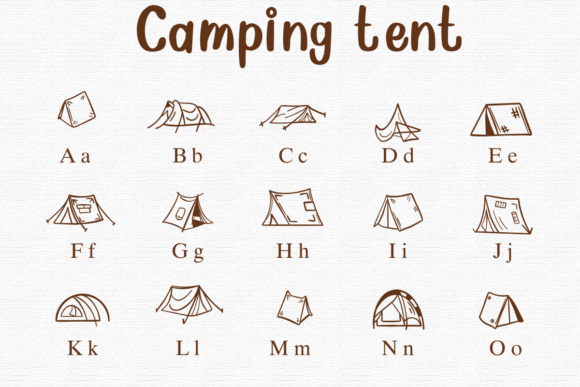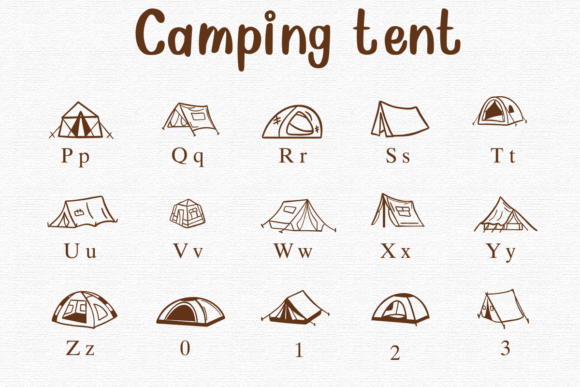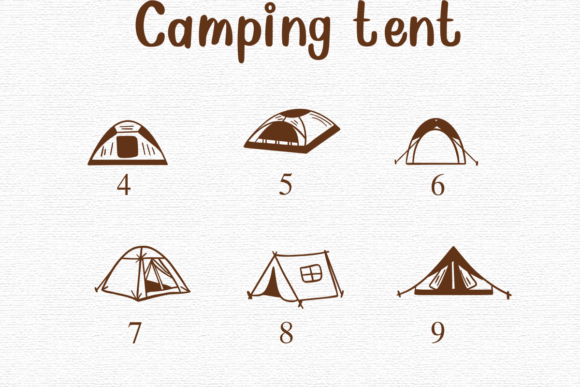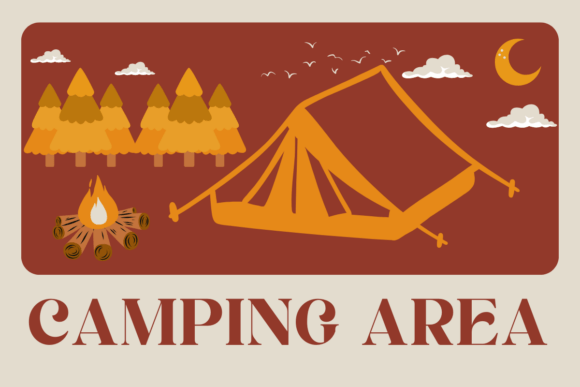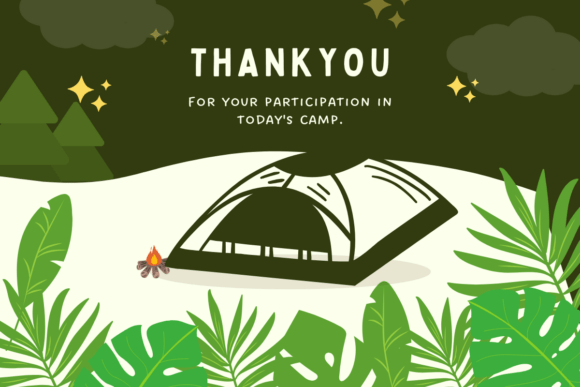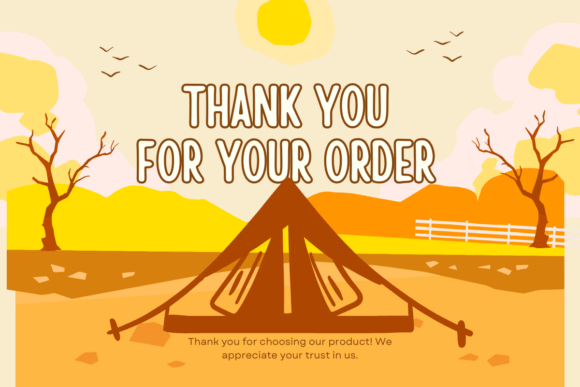
Unpacking the Perfect Design Element: Camping Tent Font
As I sat around the campfire, surrounded by the soothing sounds of nature and the warm glow of twinkling stars, I couldn’t help but think about the perfect way to capture the essence of the great outdoors in my next design project. And then it hit me – the Camping Tent Font, a playful and adventurous dingbat typeface that’s as fun as it is functional.
With its hand-drawn tent illustrations, this font is a treasure trove of creative possibilities, perfect for outdoor-themed designs, nature prints, scout events, kids’ projects, and camp logos. Whether you’re a seasoned designer or a DIY enthusiast, the Camping Tent Font brings a fun rustic charm to your work with just a keystroke, making it a valuable addition to any design arsenal.
Camping Tent Font Key Features
- Unique Characteristics: Hand-drawn, distressed, and textured design elements, ideal for outdoor and camping-themed projects
Camping Tent Font Review
I’ve had the chance to play around with the Camping Tent Font, and I have to say it’s a unique find. Here are some of the things that caught my attention:
- ✨ The font’s outdoor theme is well-represented in its design. The camping-inspired elements are seamlessly integrated into the font’s aesthetic.
- ✨ The font’s versatility allows it to be used in a variety of contexts, from outdoor adventure brands to nature-inspired products.
- ✨ The font’s bold and playful feel makes it perfect for headings and titles.
However, I did notice a few limitations:
- ⚠️ The font may not be suitable for body text due to its playful and bold nature. It can be overwhelming to read in large quantities.
- ⚠️ The font’s design may not be ideal for formal or professional applications, as it has a more casual and whimsical feel.
Overall, I think the Camping Tent Font is a fun and creative choice for designers looking to add a touch of adventure to their projects. While it may not be suitable for every context, it’s a great option for those who want to convey a sense of excitement and exploration.
Here are some tips for getting the most out of the Camping Tent Font:
- Use it for outdoor-themed designs, such as camping and hiking
- Combine it with other outdoor-themed fonts for a cohesive look
- Adjust font size and style to fit your design needs
The Camping Tent Font is commonly used in the following scenarios:
- Camping and outdoor gear advertisements
- Outdoor-themed event invitations
- Outdoor adventure travel blogs